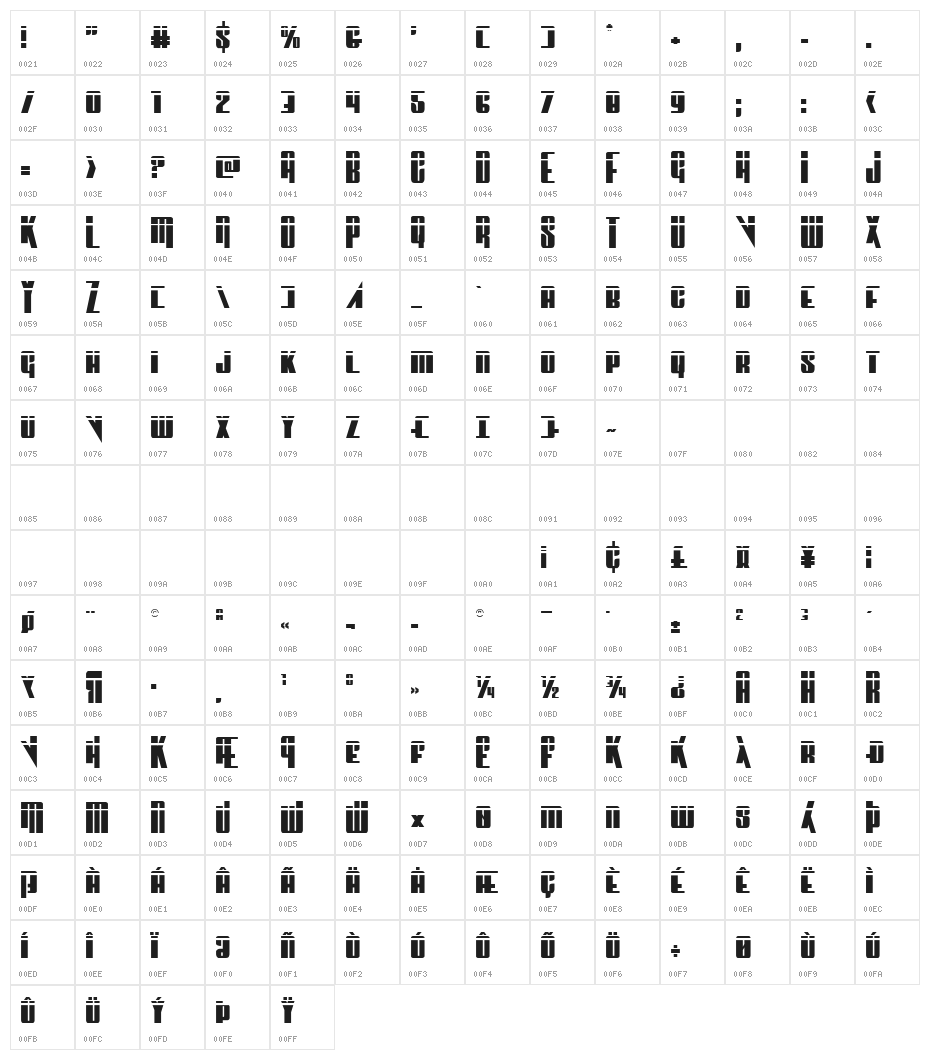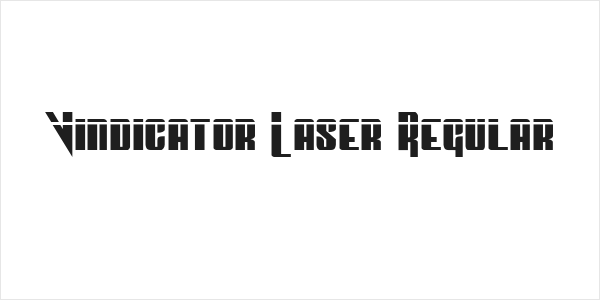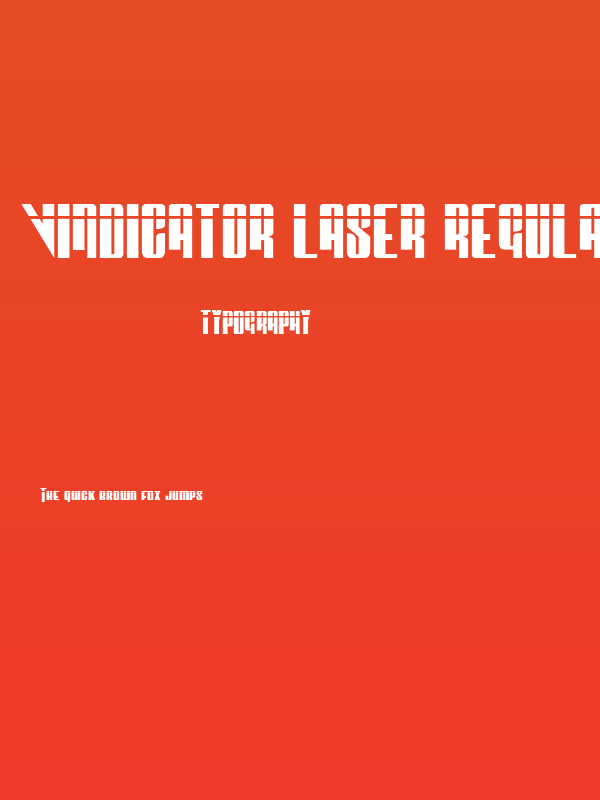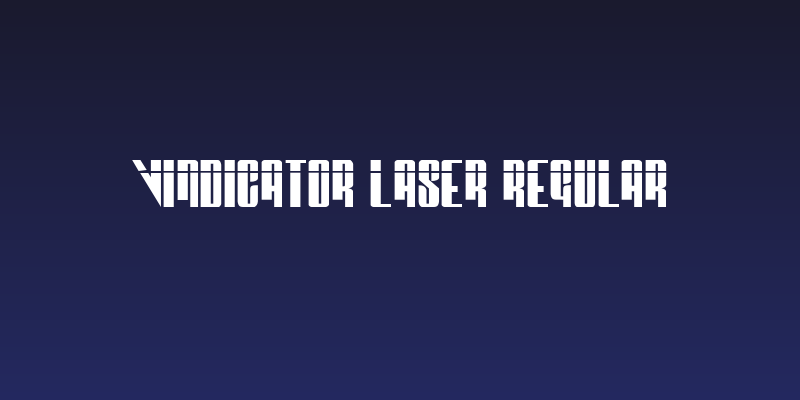
Vindicator Laser Regular Font
Vindicator Laser Regular Description
This font features a bold and futuristic design, characterized by its sharp angles and geometric shapes. The uppercase letters are particularly striking, with a strong presence and a unique cut-out style that adds a sense of movement and dynamism. The lowercase letters maintain the same boldness, ensuring consistency across text. Numbers and special characters follow the same design principles, making them ideal for attention-grabbing headlines or logos. The overall aesthetic is modern and edgy, suitable for projects that require a strong visual impact.
Proposed ProjectsIdeal for sci-fi themed posters, video game titles, tech company logos, and modern branding projects.